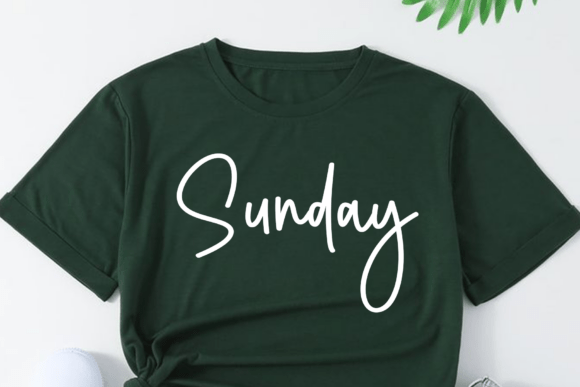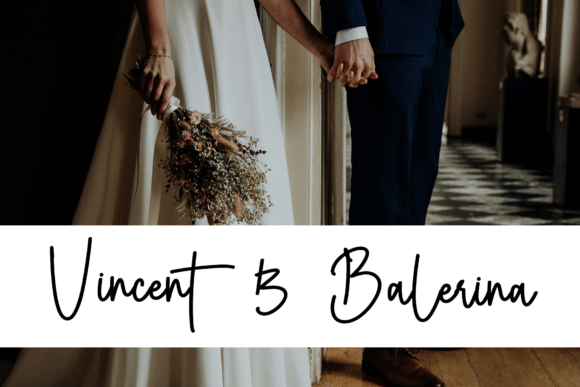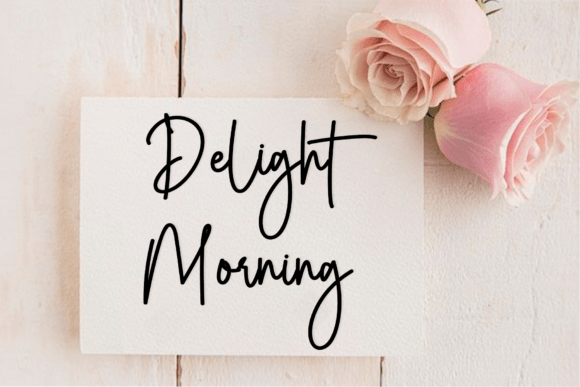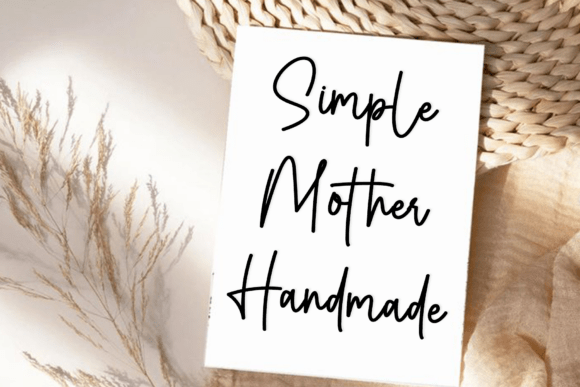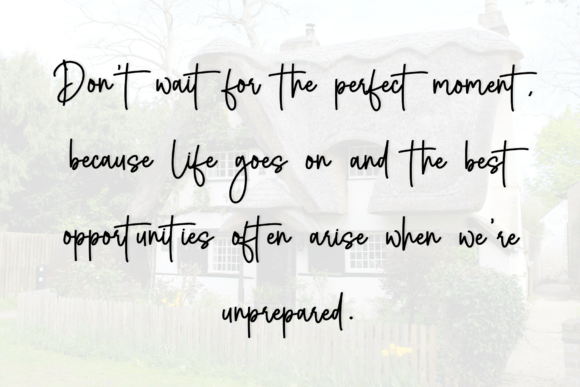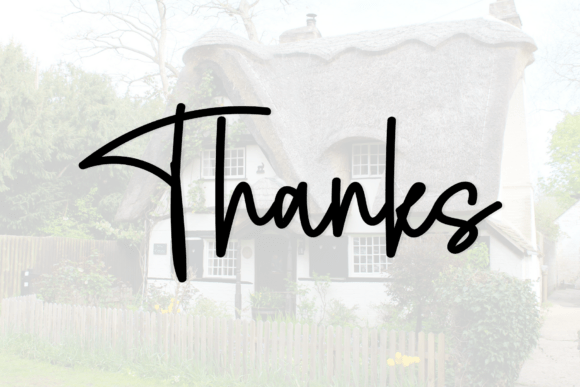
The Elusive Perfect Font: My Journey with Cottages Font
Ah, the quest for the perfect font. We’ve all been there – scrolling through font libraries, testing out different styles, and still, nothing seems quite right. I recall working on a luxury branding project for a high-end wedding planner, and I was determined to find a font that exuded elegance and sophistication. That’s when I stumbled upon Cottages Font, a “new style” handwritten script font that has since become a staple in my design toolkit.
A Closer Look: What I Love About Cottages Font
Cottages Font is a masterclass in modern elegance. Its fluid, signature-like motion is achieved through a delicate balance of tall ascenders and sweeping loops, creating a rhythmic and sophisticated visual flow. Here are just a few things that I love about this beautiful font:
- ✨ Elegant and refined aesthetic, perfect for luxury branding and high-end editorial content
- ✅ Fluid, handwritten feel that’s both modern and sophisticated
- 💫 Features OpenType features, glyphs, and stylistic alternates for added versatility
- 📝 Works beautifully for signature logos, wedding stationery, and more
The Not-So-Perfect: A Few Quirks and Limitations
While Cottages Font is an exceptional font, it’s not without its quirks. Here are a few things to keep in mind:
- 🤔 May require some manual kerning to achieve optimal results, particularly at smaller font sizes
- ⚠️ Limited availability of certain characters, such as ligatures and diacritical marks
Exploring Alternatives: Similar Fonts to Cottages
While Cottages Font is a unique gem, there are other fonts that share similar qualities. Here are a few alternatives to consider:
- Carolyna Pro: A elegant script font with a similar feel to Cottages, perfect for luxury branding and wedding stationery
- Lorake: A modern script font with a more whimsical feel, great for creative projects and editorial content
- Adorn: A sophisticated script font with a vintage flair, ideal for high-end branding and luxury packaging
- Alex Brush: A beautiful, handwritten script font with a more rustic feel, perfect for creative projects and DIY branding
The Story Behind Cottages Font
Cottages Font was designed with the intention of capturing the essence of modern elegance. The designer aimed to create a font that would be both refined and approachable, perfect for luxury branding and high-end editorial content. Through its fluid, signature-like motion, Cottages Font brings a touch of sophistication to every word.
Here are some frequently asked questions about Cottages Font:
- Q: What type of projects is Cottages Font best suited for?
- A: Cottages Font is perfect for luxury branding, signature logos, wedding stationery, and high-end editorial content.
- Q: Does Cottages Font support OpenType features?
- A: Yes, Cottages Font features OpenType features, glyphs, and stylistic alternates for added versatility.